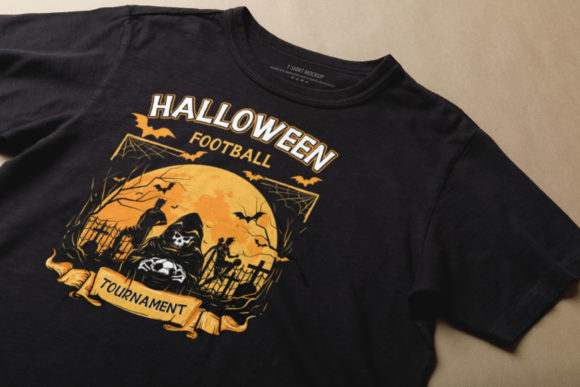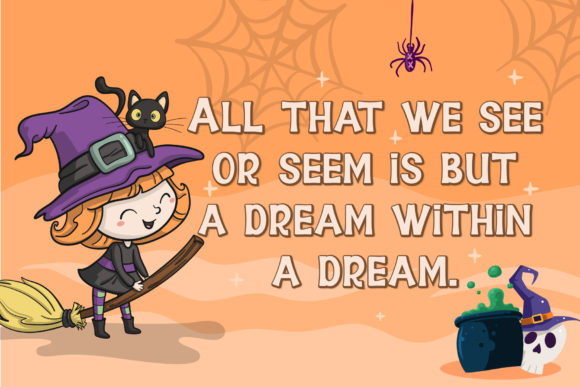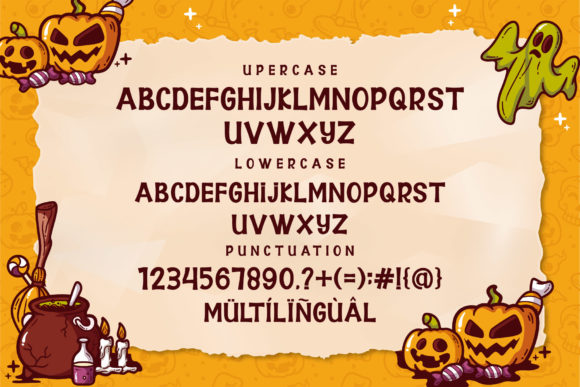
Introduction to Micky Dicky Font
Micky Dicky is a bold and colorful display font.
Its spooky feel makes this font incredibly versatile, fitting a wide range of Halloween contexts Add it to your creative ideas and notice how it makes them stand out.